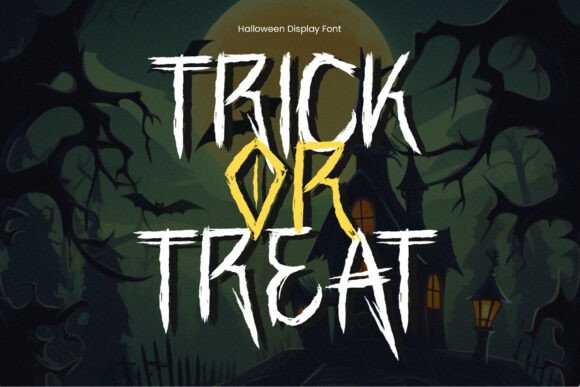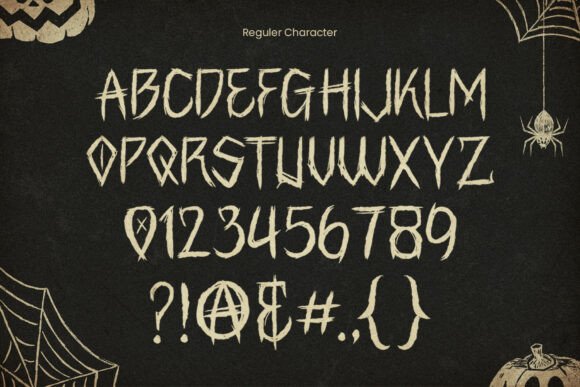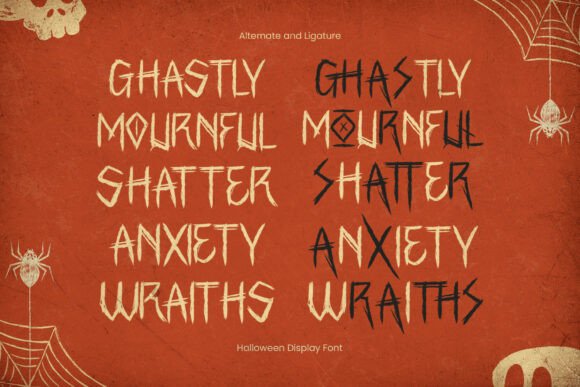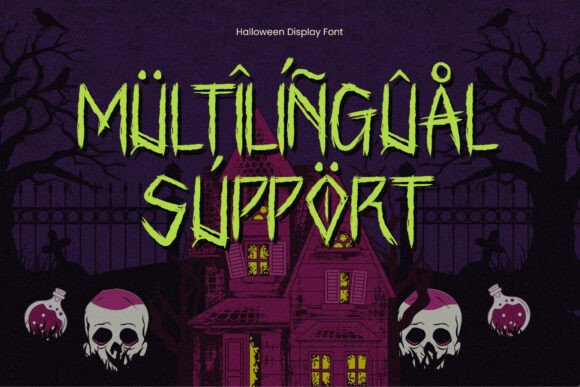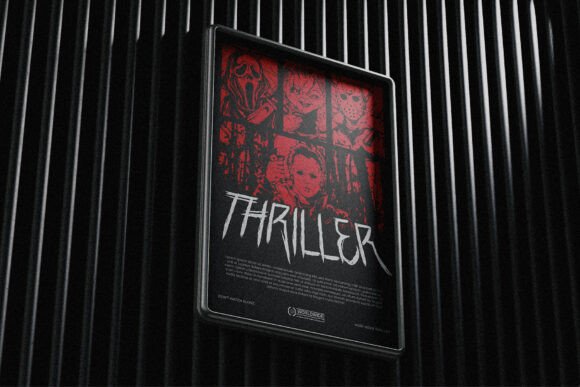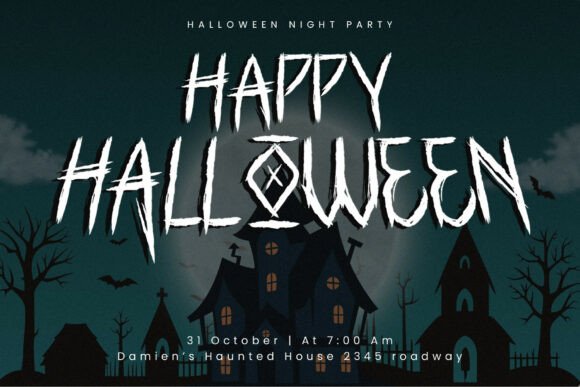
Ghosoul Abigael Font: The Perfect Spooky Addition to Your Halloween Designs
Are you looking for a font that will add a touch of eeriness and mystery to your Halloween designs? Look no further than the Ghosoul Abigael Font. This creepy, hand-drawn Halloween display font is perfect for creating horror movie titles, Halloween posters, eerie party invitations, trick-or-treat merch, and ghostly packaging.
What Makes Ghosoul Abigael Font So Special?
Ghosoul Abigael Font is designed with rough brush textures and haunted vibes, giving it a unique and spooky feel. The font comes with alternate characters and spooky ligatures, which allow you to create a wide range of creepy and eerie text effects. Whether you’re designing a poster for a horror movie or a invitation for a Halloween party, this font is sure to add a touch of fear and mystery to your design.
Key Features of Ghosoul Abigael Font
- Creepy and Hand-Drawn Design: Ghosoul Abigael Font is a hand-drawn font with a creepy and eerie feel. The rough brush textures and haunted vibes make it perfect for Halloween designs.
- Alternate Characters and Ligatures: The font comes with alternate characters and spooky ligatures, which allow you to create a wide range of creepy and eerie text effects.
- Perfect for Seasonal Designs: The font is ideal for any seasonal design with a haunted twist, including horror movie titles, Halloween posters, eerie party invitations, trick-or-treat merch, and ghostly packaging.
Uses for Ghosoul Abigael Font
Ghosoul Abigael Font is a versatile font that can be used for a wide range of design projects. Here are some ideas for using this font:
- Horror Movie Titles: Use Ghosoul Abigael Font to create creepy and eerie titles for horror movies.
- Halloween Posters: Create eye-catching posters for Halloween parties and events using this font.
- Eerie Party Invitations: Design spooky and inviting party invitations with Ghosoul Abigael Font.
- Trick-or-Treat Merch: Use the font to create fun and spooky designs for trick-or-treat merchandise, such as t-shirts and bags.
- Ghostly Packaging: Add a touch of eeriness to your product packaging with Ghosoul Abigael Font.
Why Designers and Crafters Love Ghosoul Abigael Font
Ghosoul Abigael Font is a favorite among designers and crafters for several reasons:
- Unique and Eye-Catching Design: The font’s creepy and hand-drawn design makes it stand out from other fonts.
- Versatile: Ghosoul Abigael Font can be used for a wide range of design projects, from horror movie titles to Halloween party invitations.
If you’re looking for a font that will add a touch of eeriness and mystery to your Halloween designs, look no further than Ghosoul Abigael Font. With its creepy and hand-drawn design, alternate characters and ligatures, and multi-format support, this font is perfect for horror movie titles, Halloween posters, eerie party invitations, trick-or-treat merch, and ghostly packaging. So why wait? Download Ghosoul Abigael Font today and start creating spooky and eye-catching designs for Halloween and beyond!